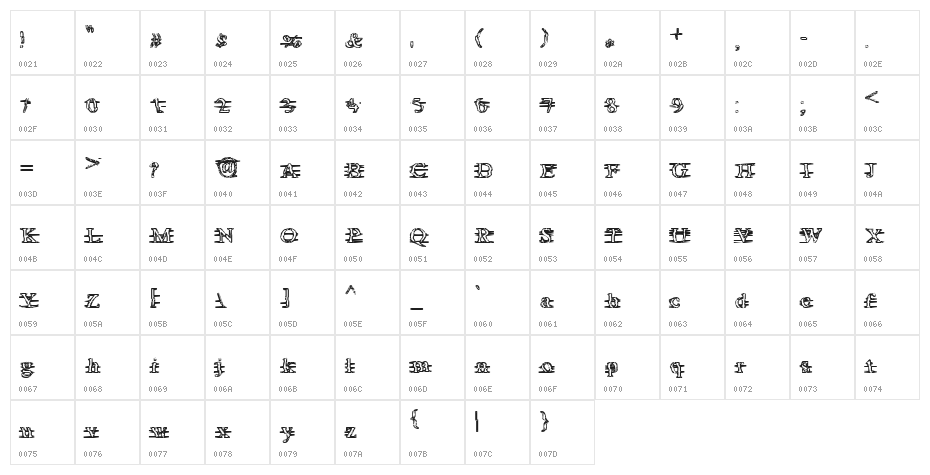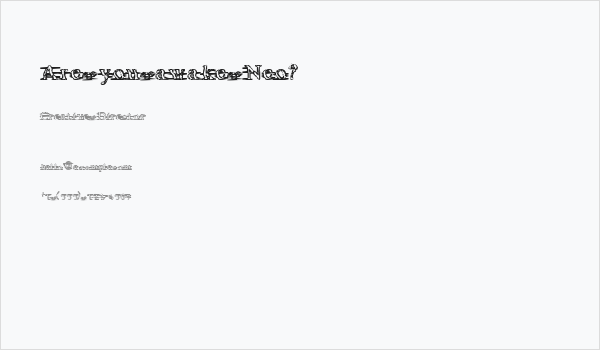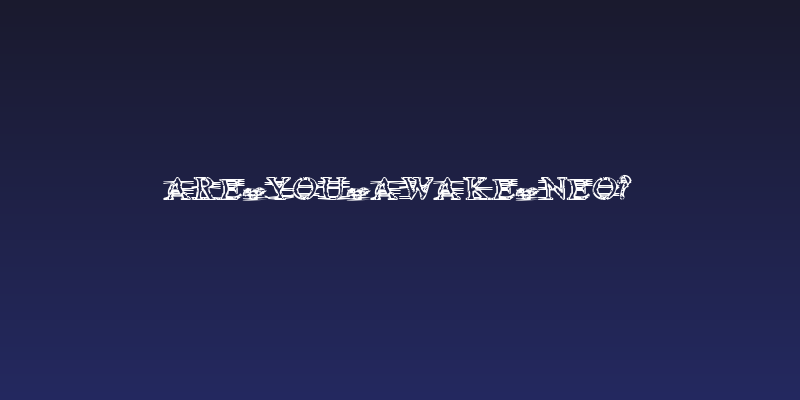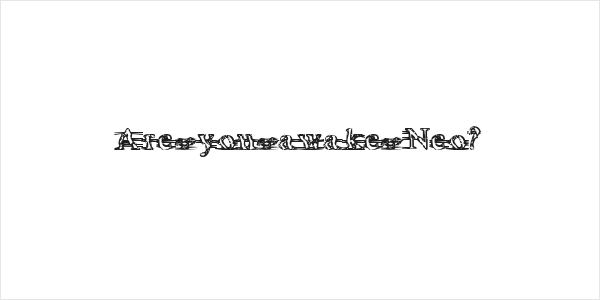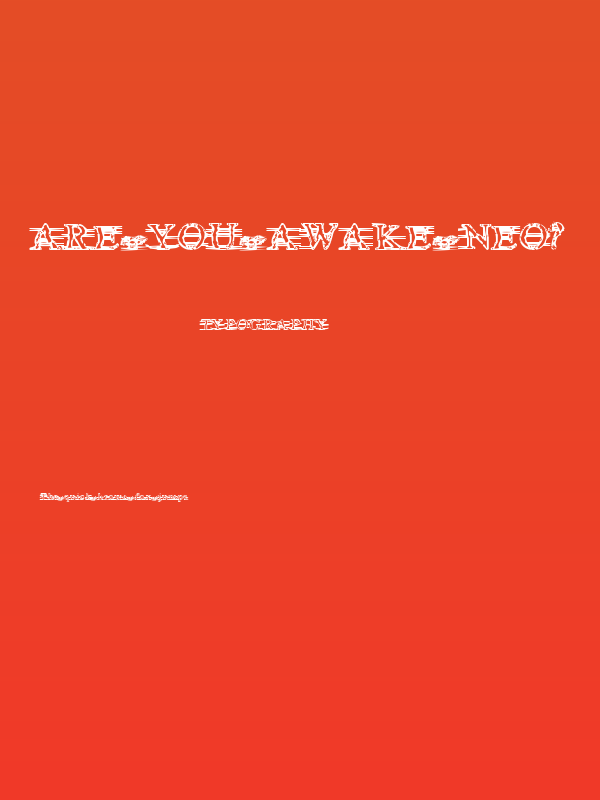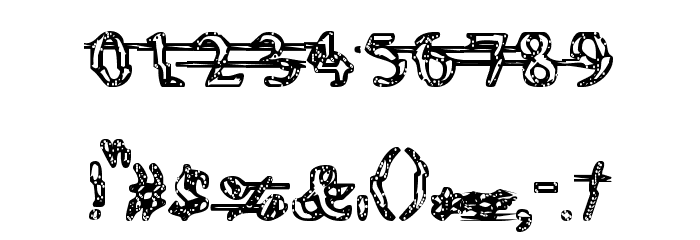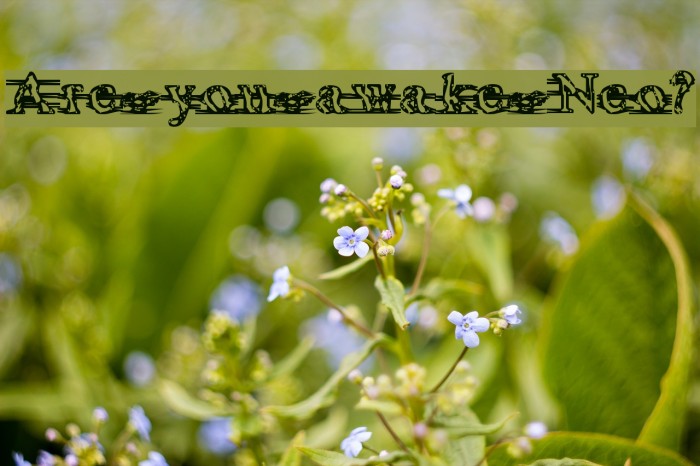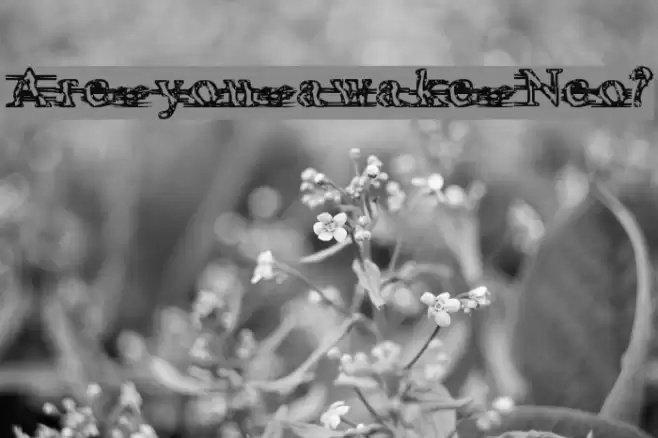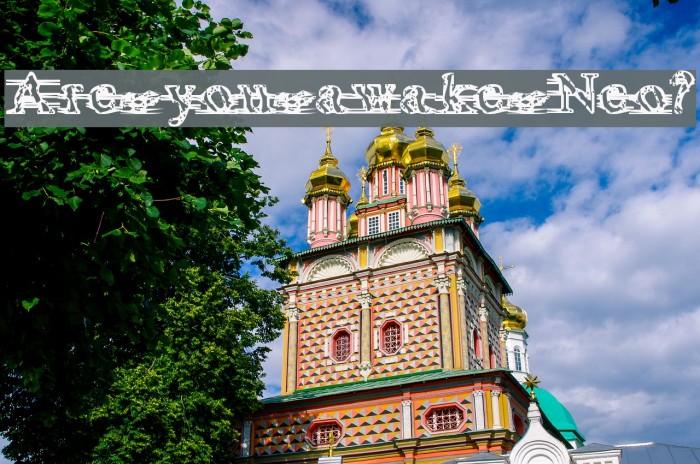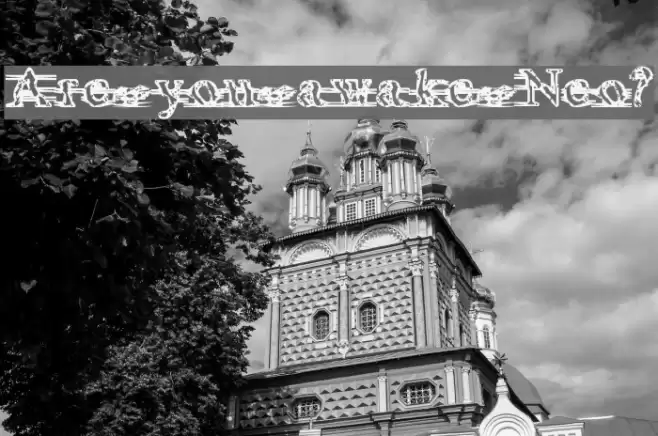
Are you awake Neo? Font
Are you awake Neo? Description
This font features a unique, distressed style with a hand-drawn appearance. The characters are outlined with a rough, sketch-like quality, giving them a textured and rugged look. The uppercase and lowercase letters maintain a consistent style, with slightly exaggerated serifs and uneven lines that add to the font's organic feel. Numbers and special characters follow the same aesthetic, ensuring a cohesive appearance across all glyphs. This font's distinctiveness makes it stand out, offering a bold and artistic impression.
| Proposed Projects | Ideal for projects that require a bold, artistic touch, such as album covers, posters, or branding for creative industries. |